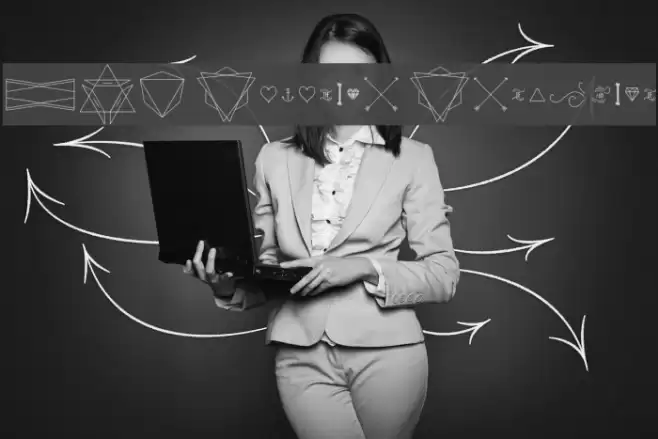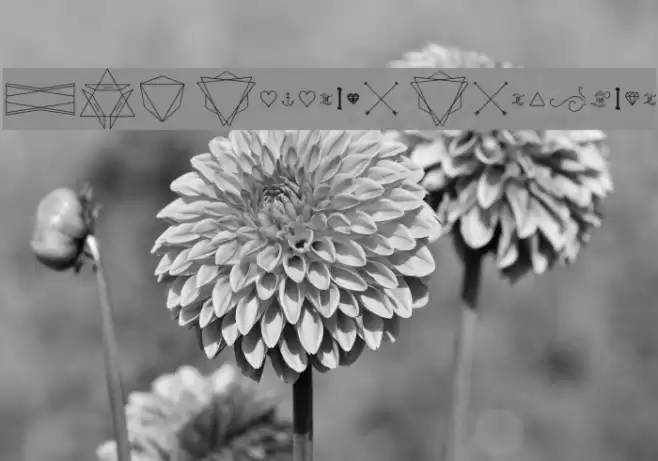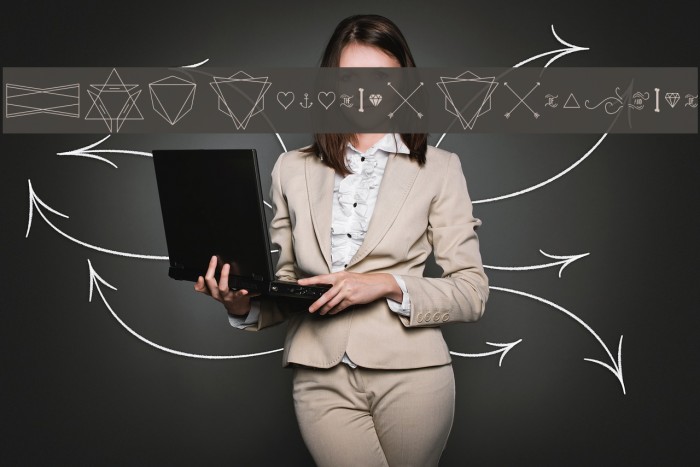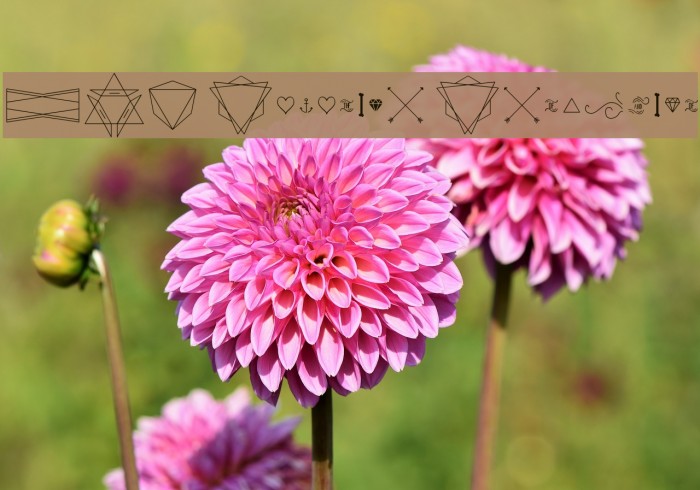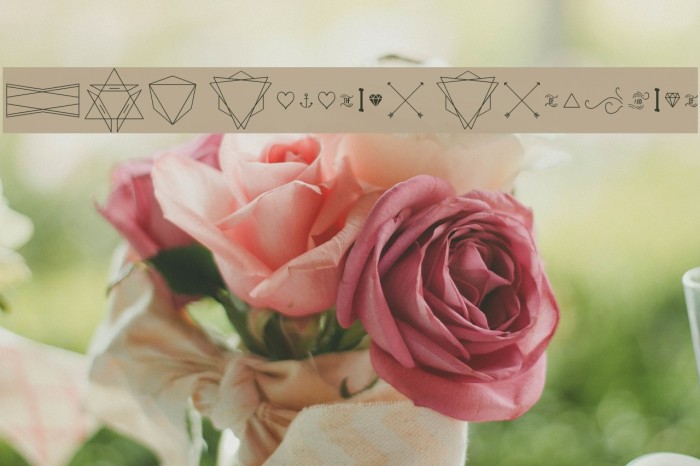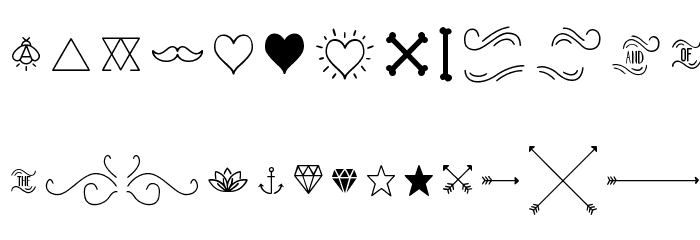
HBM Serenity Symbolism Font
HBM Serenity Symbolism Description
This collection features a variety of decorative symbols and icons, each with a unique geometric or organic design. The symbols include abstract shapes, hearts, arrows, stars, and other ornamental elements. The style is clean and minimalistic, with a mix of thin and bold lines that create a balanced visual appeal. These symbols can be used to add a touch of elegance and creativity to various design projects. The overall aesthetic is modern and versatile, suitable for both digital and print media.
A modern collection of decorative symbols and icons with a clean, minimalistic style from Uncategorized fonts.
- Proposed Projects: Ideal for use in branding, invitations, posters, and digital graphics where decorative elements are needed.
- Use Case: Logos, Decorative elements, Invitations